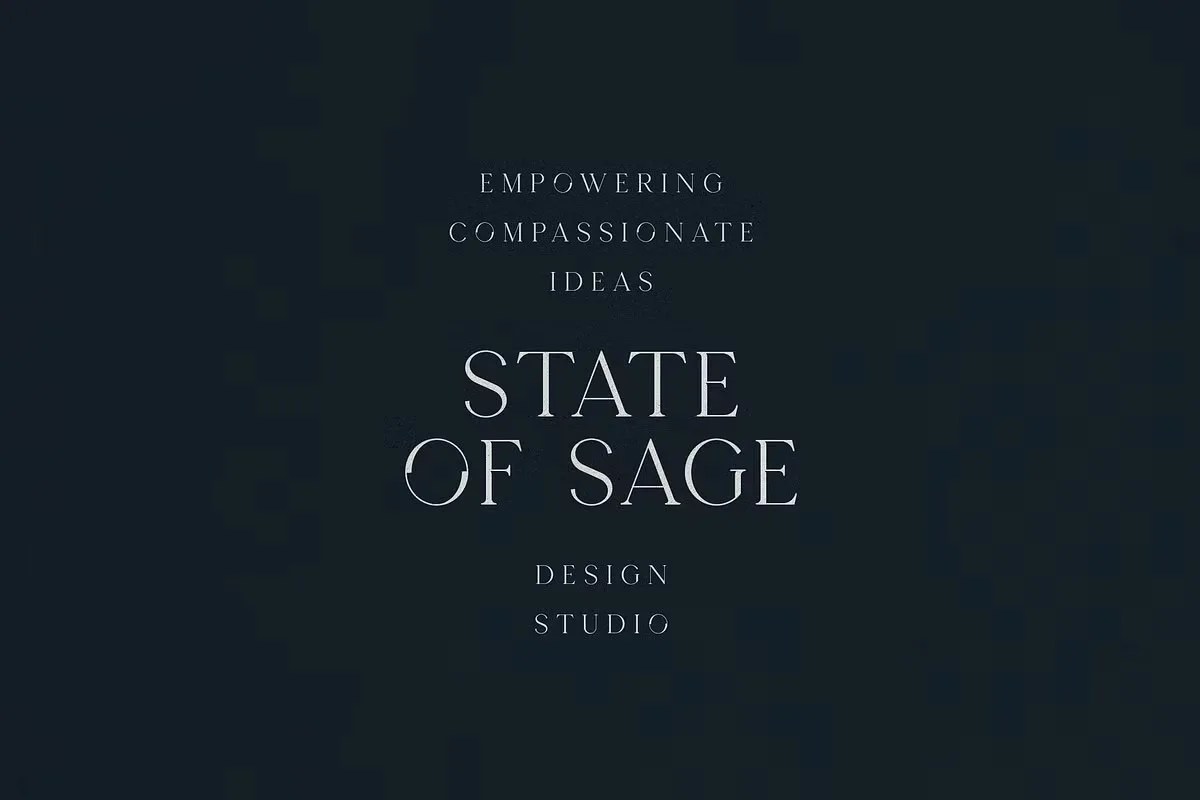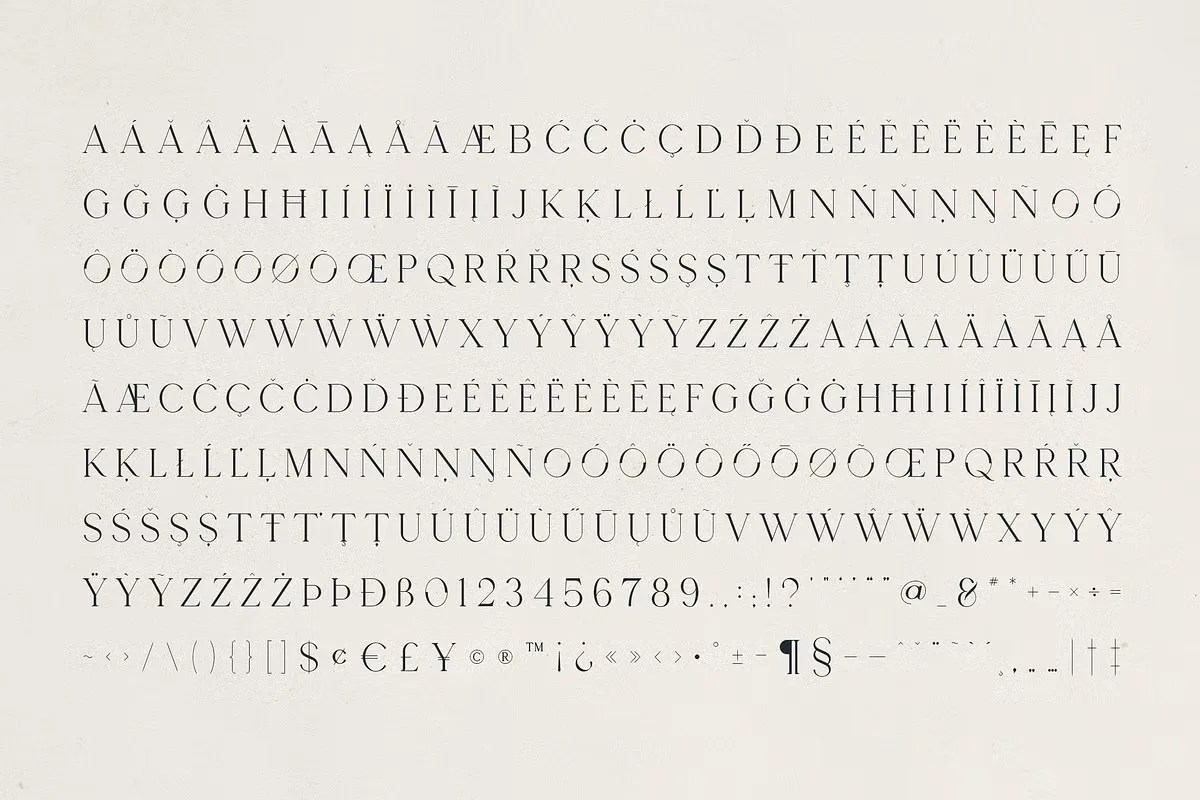
Rovelle by Only Fonts. This is a stunning luxury serif font that radiates elegance from every character. It features graceful curves and a sharp, high-contrast design. This font brings an immediate sense of high fashion and refinement to any layout. Rovelle is perfect for projects that demand a glamorous and polished aesthetic, making a powerful statement of class and style.
This font elevates brands and projects to a new level of class. Specifically, its glamorous style is a perfect match for fashion, beauty, and lifestyle branding. It helps create an immediate impression of quality and exclusivity. Furthermore, this luxury serif font is a fantastic choice for editorial headlines and memorable logotypes. Designers can also use it for elegant wedding invitations or upscale product packaging. It adds a premium feel to any design it touches, ensuring your work stands out.
• Elegant high-contrast serif style
• Features graceful curves and sharp serifs
• Ideal for fashion, luxury branding, and logos
• Provides a glamorous and sophisticated look